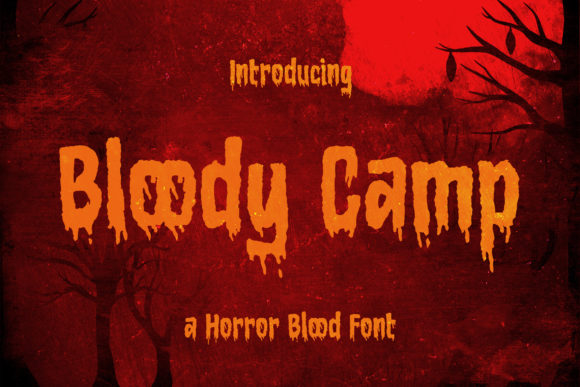
Bloody Camp Font: The Ultimate Choice for Spooky and Thrilling Projects
The Bloody Camp Font is a creative decorative font that has been making waves in the design world. Its unique melting characters evoke a sense of fear and unease, making it the perfect choice for thriller projects, Halloween invitations, horror games, spooky t-shirts, and other scary crafts. In this article, we’ll dive into the world of Bloody Camp Font and explore its features, uses, and benefits.
What Makes Bloody Camp Font Stand Out?
Bloody Camp Font is a one-of-a-kind decorative font that boasts a range of features that set it apart from other fonts. Here are some of its key characteristics:
- Melting Characters: The font’s melting characters give off a scary and eerie feel, making it perfect for horror-themed projects.
- Creative Design: The font’s design is both creative and unique, making it a great choice for designers looking to add a touch of personality to their work.
- High-Quality: The font is of high quality, ensuring that it looks great in any design or project.
Uses of Bloody Camp Font
Bloody Camp Font is a versatile font that can be used in a variety of projects. Here are some of the most popular uses of the font:
- Thriller Projects: The font’s scary and eerie feel makes it perfect for thriller projects, such as movie posters, book covers, and video game designs.
- Halloween Invitations: The font is a great choice for Halloween invitations, adding a touch of spookiness and fun to your designs.
- Horror Games: Bloody Camp Font is a great choice for horror games, adding a level of realism and fear to your game’s design.
- Spooky T-Shirts: The font is perfect for designing spooky t-shirts, adding a touch of personality and humor to your designs.
- Scary Crafts: The font can be used in a variety of scary crafts, such as making horror-themed decorations, cards, and other DIY projects.
Benefits of Using Bloody Camp Font
There are many benefits to using Bloody Camp Font in your designs. Here are some of the most significant advantages:
- Unique Design: The font’s unique design sets it apart from other fonts, making your designs stand out from the crowd.
- High-Quality: The font is of high quality, ensuring that it looks great in any design or project.
- Versatile: The font is versatile and can be used in a variety of projects, from thriller projects to Halloween invitations.
Tips and Tricks for Using Bloody Camp Font
Here are some tips and tricks for using Bloody Camp Font in your designs:
- Use it Sparingly: Use the font sparingly to add a touch of personality to your designs. Overusing the font can make your designs look cluttered and overwhelming.
- Pair it with Other Fonts: Pair Bloody Camp Font with other fonts to create a unique and interesting design.
- Experiment with Colors: Experiment with different colors to find the perfect combination that works with your design.
- Pay Attention to Size: Pay attention to the size of the font, as it can affect the overall look and feel of your design.
Bloody Camp Font is a unique and creative decorative font that is perfect for thriller projects, Halloween invitations, horror games, spooky t-shirts, and other scary crafts. Its melting characters and scary feel make it a great choice for designers looking to add a touch of personality to their work. With its high-quality design, versatility, and ease of use, Bloody Camp Font is a great addition to any designer’s toolkit.